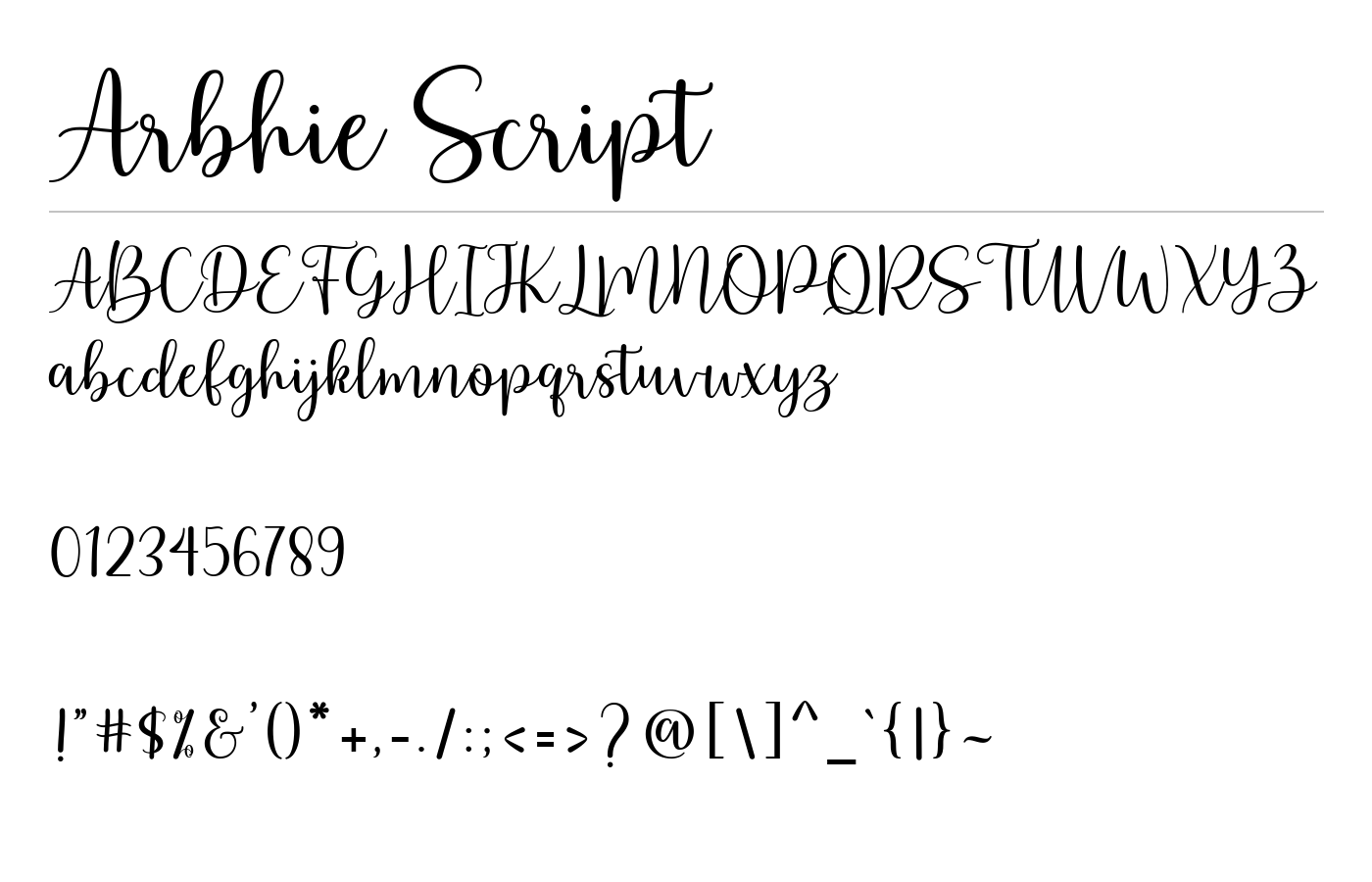
Arbhie Script is a delicate and elegant handwritten script font characterized by its smooth, flowing strokes and moderate contrast, giving it a graceful and approachable feel. Its tall, slender letterforms with subtle curves make it ideal for wedding invitations, branding, and feminine designs where a personal, sophisticated touch is desired. This font works well for headlines and decorative text, adding charm and elegance without compromising readability.
Arbhie Script Font
About Arbhie Script Font